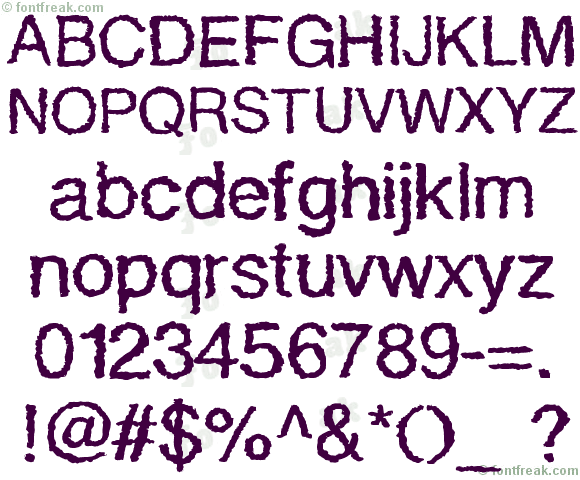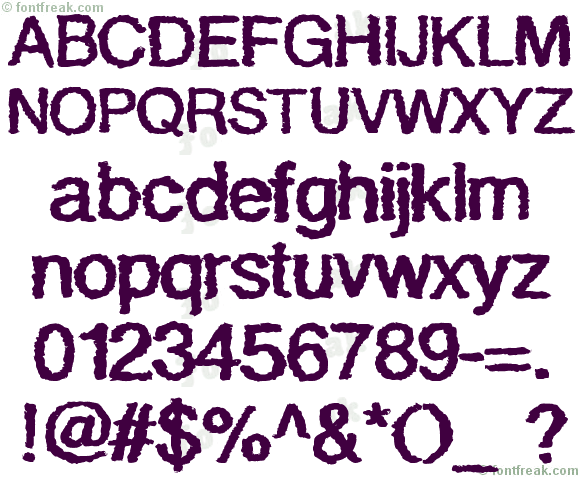
Quaky
QuakyLight
Quaky, designed by Shara Weber, is a captivating display font that brings a unique, handcrafted aesthetic to any project. As a decorative typeface, it boasts an organic, playful style characterized by its uneven stroke weight and rough edges, giving it a distinctly casual and artistic feel. The font features a moderate contrast in thickness, which adds depth and visual interest, while its generous spacing enhances readability, making it suitable for various applications.
This font excels in creative settings, making it an ideal choice for wedding invitations, where its whimsical nature can charm recipients. Additionally, Quaky is perfect for movie posters, capturing attention with its distinctive flair and ensuring that titles stand out. Restaurant menus can benefit from its inviting look, providing a friendly touch that complements a diverse range of cuisines. Furthermore, it serves well in social media graphics, allowing content creators to convey a relaxed yet engaging vibe that resonates with audiences.
Targeting graphic designers, small business owners, and content creators, Quaky offers versatility and a touch of personality to projects. Whether you're crafting promotional materials or personal invitations, this font is sure to make a memorable impact.
What sets the Quaky font apart is its ability to blend informality with artistic expression, making it a go-to choice for anyone looking to infuse their work with character. Its unique design captures attention and evokes emotion, elevating visual communications to new heights. Don't miss the opportunity to enhance your creative toolkit; Quaky font free download is available, allowing you to experiment with its charm in your next project.